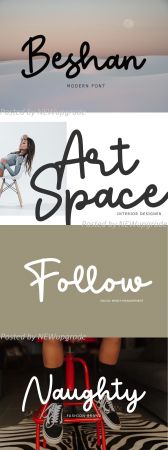
Beshan Modern Font is a modern look of Script font, can make your text appear elegant, luxurious, and modern!
Beshan is perfect for branding projects, logo, wedding designs, social media posts, advertisements, product packaging, T-shirt design, product designs, label, photography, watermark, invitation, stationery, and any projects.